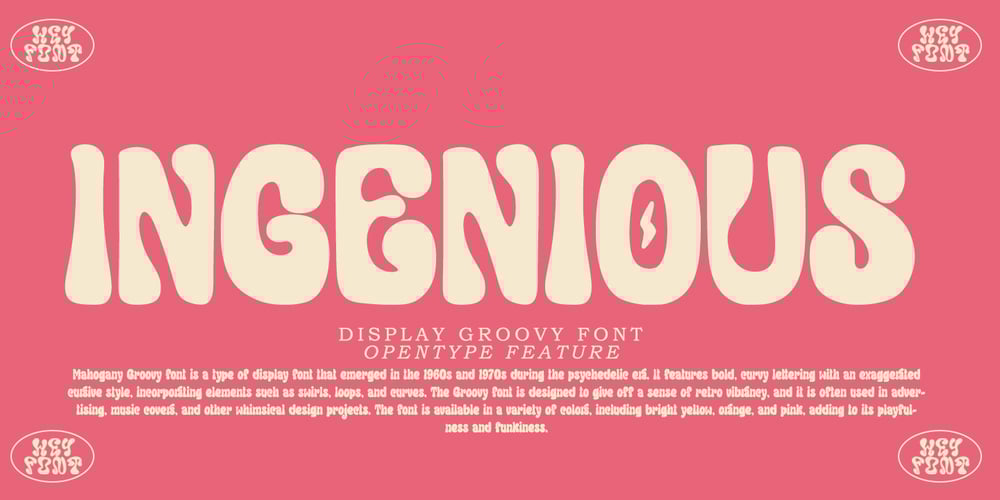
Ingenious Font Family was designed by Asep Rendy and published by Heyfonts. Ingenious contains 1 styles and family package options. Ingenious Groovy font is a type of display font that emerged in the 1960s and 1970s during the psychedelic era. It features bold, curvy lettering with an exaggerated cursive style, incorporating elements such as swirls, loops, and curves. The Groovy font is designed to give off a sense of retro vibrancy, and it is often used in advertising, music covers, and other whimsical design projects. The font is available in a variety of colors, including bright yellow, orange, and pink, adding to its playfulness and funkiness.